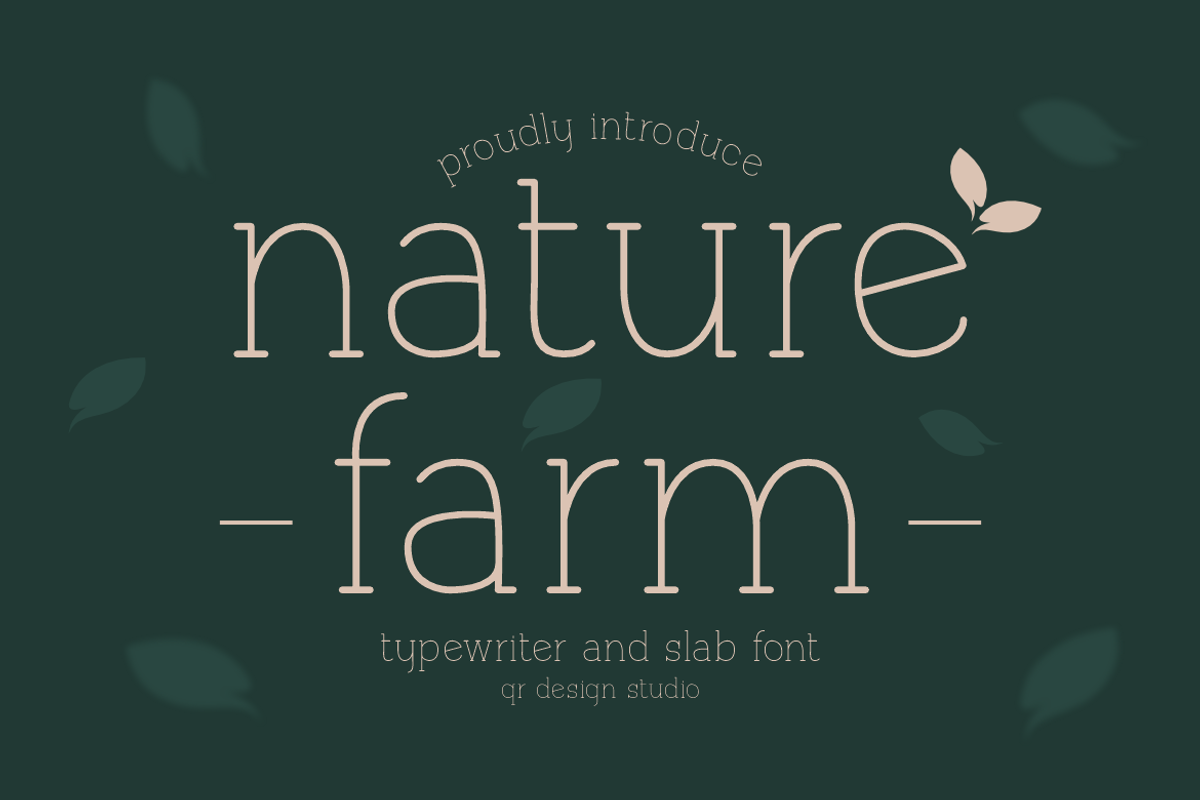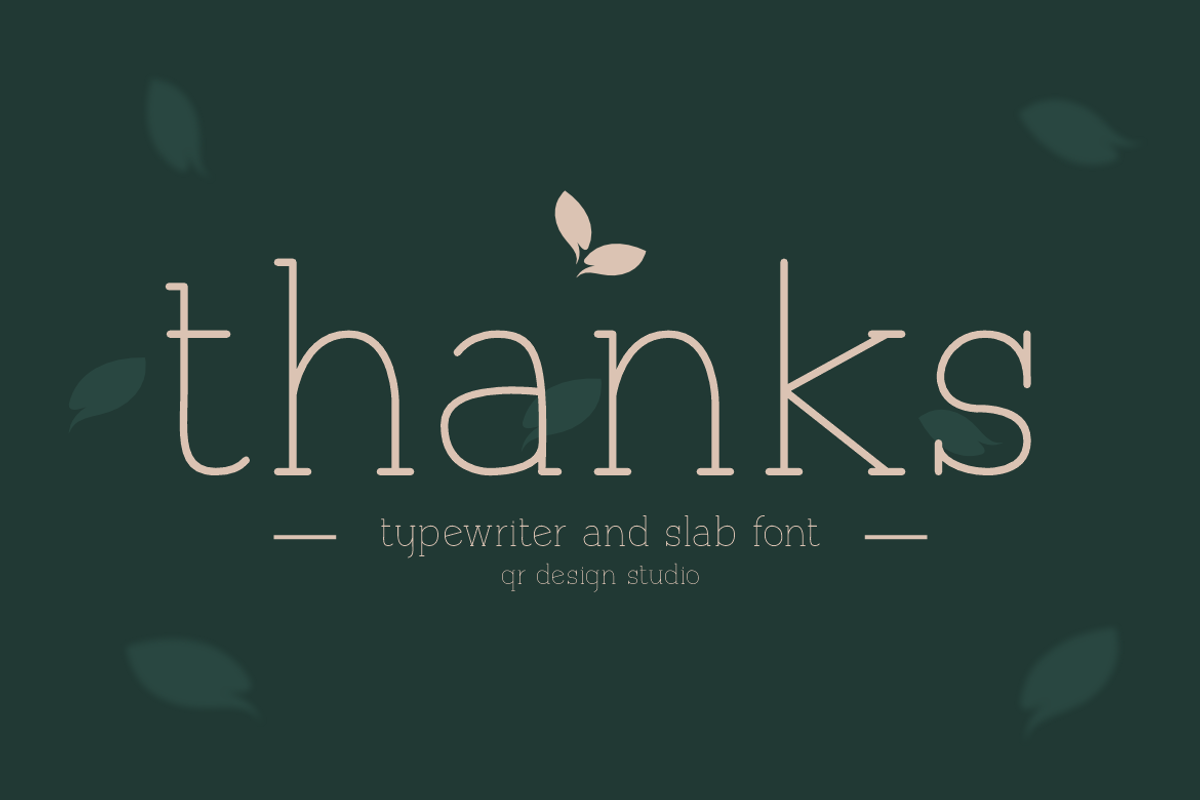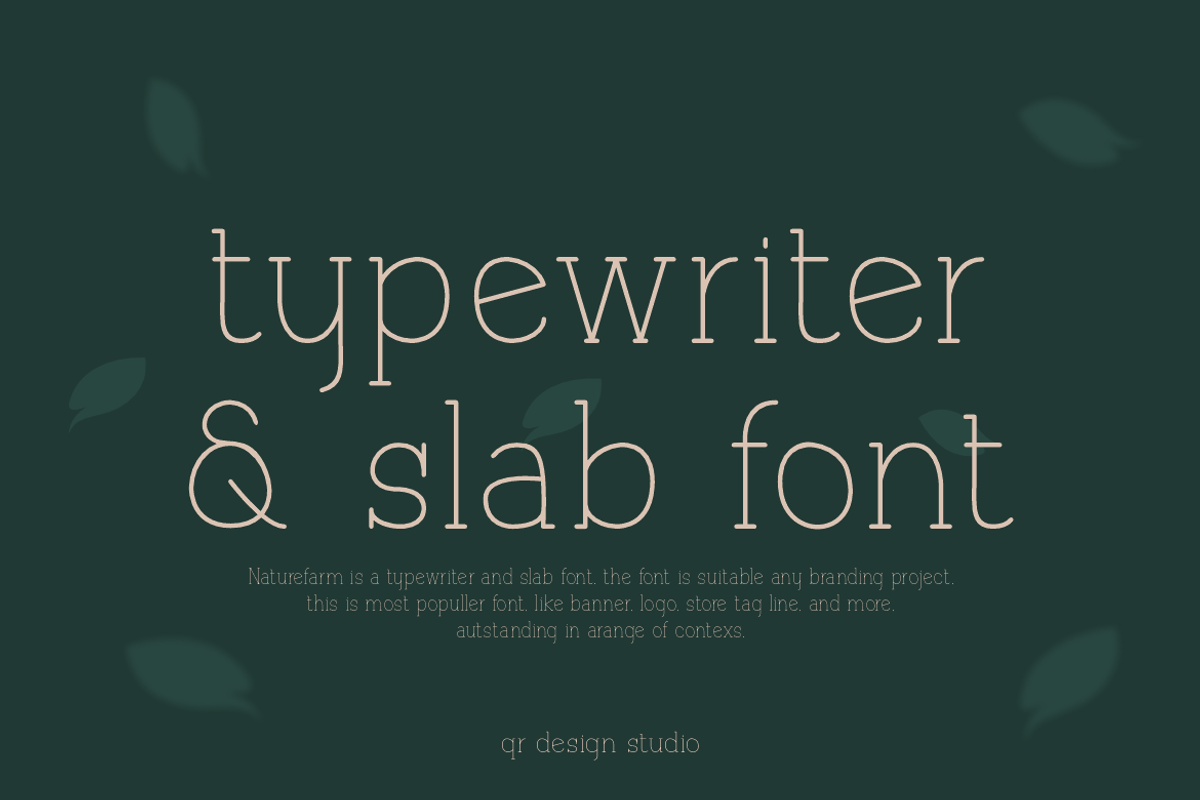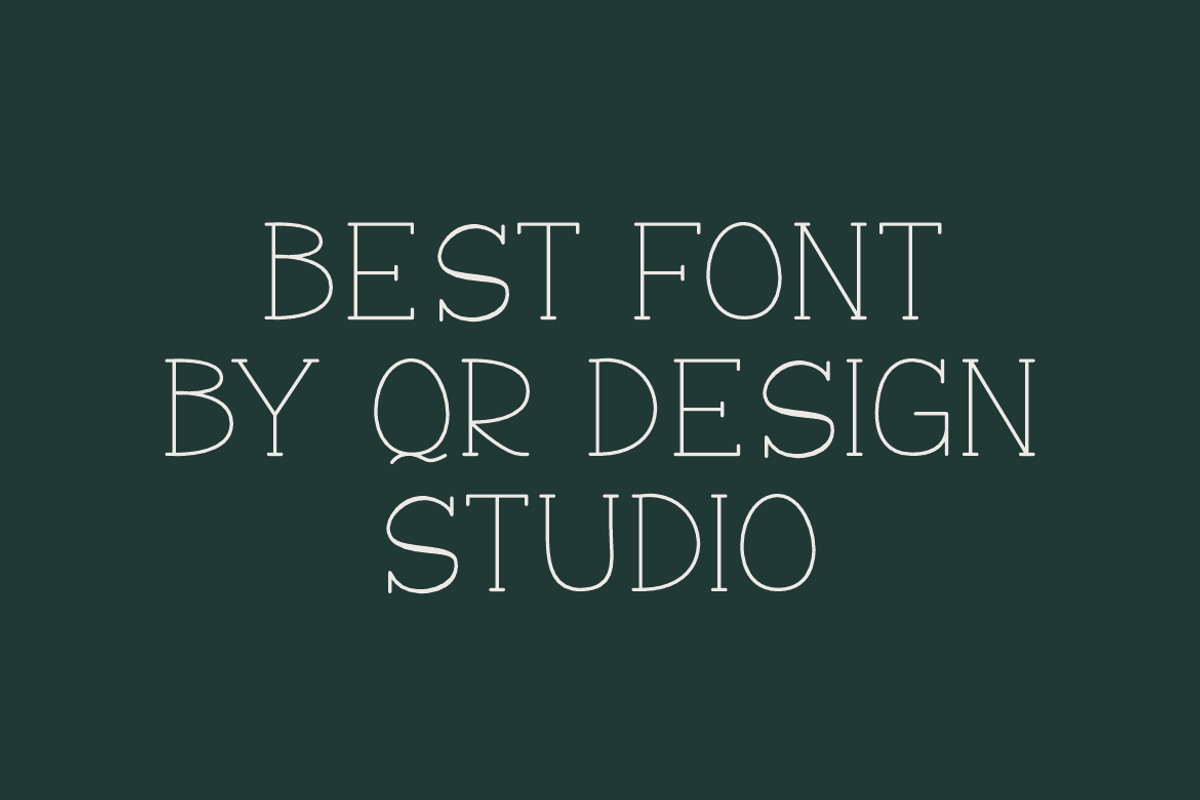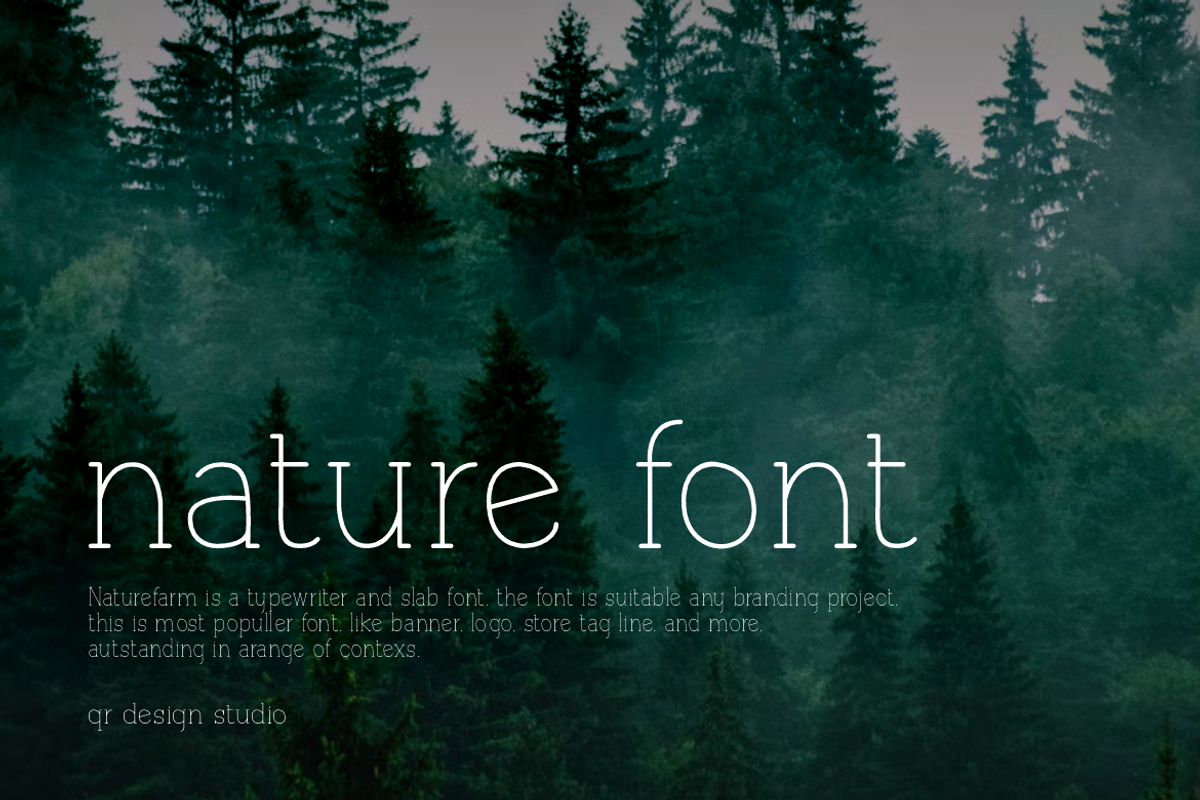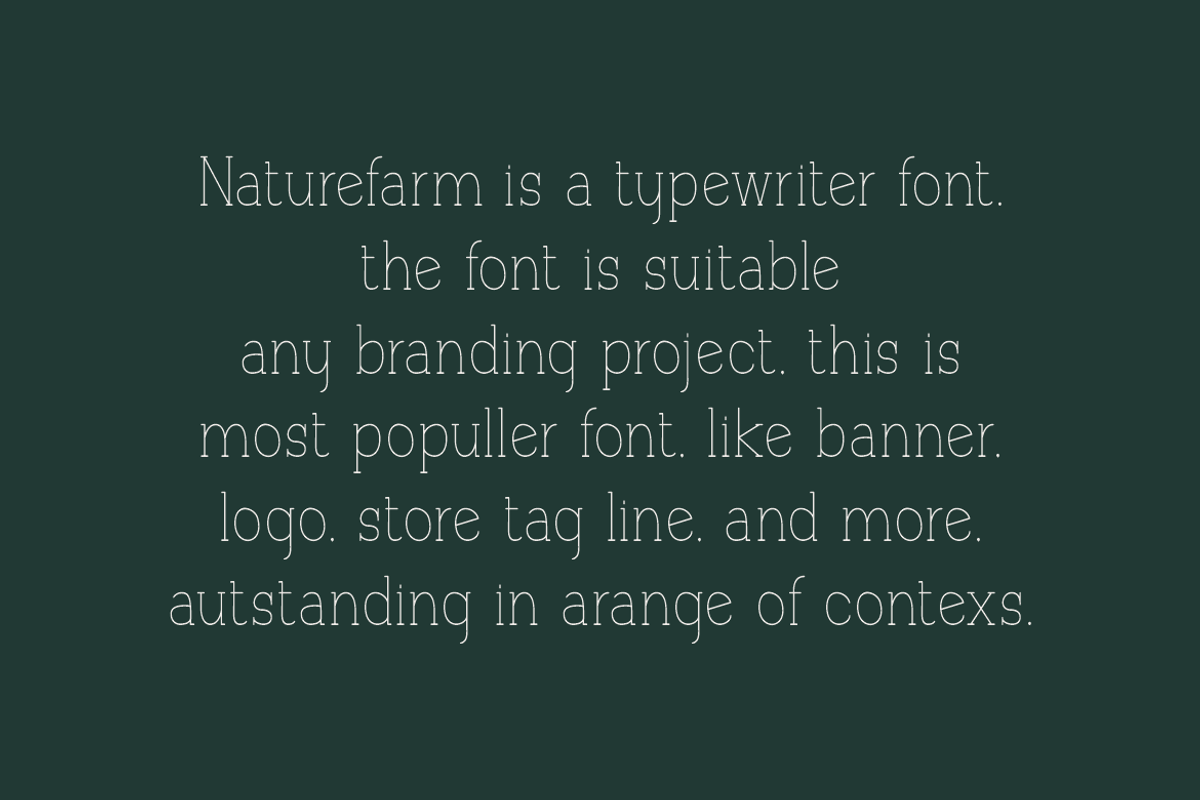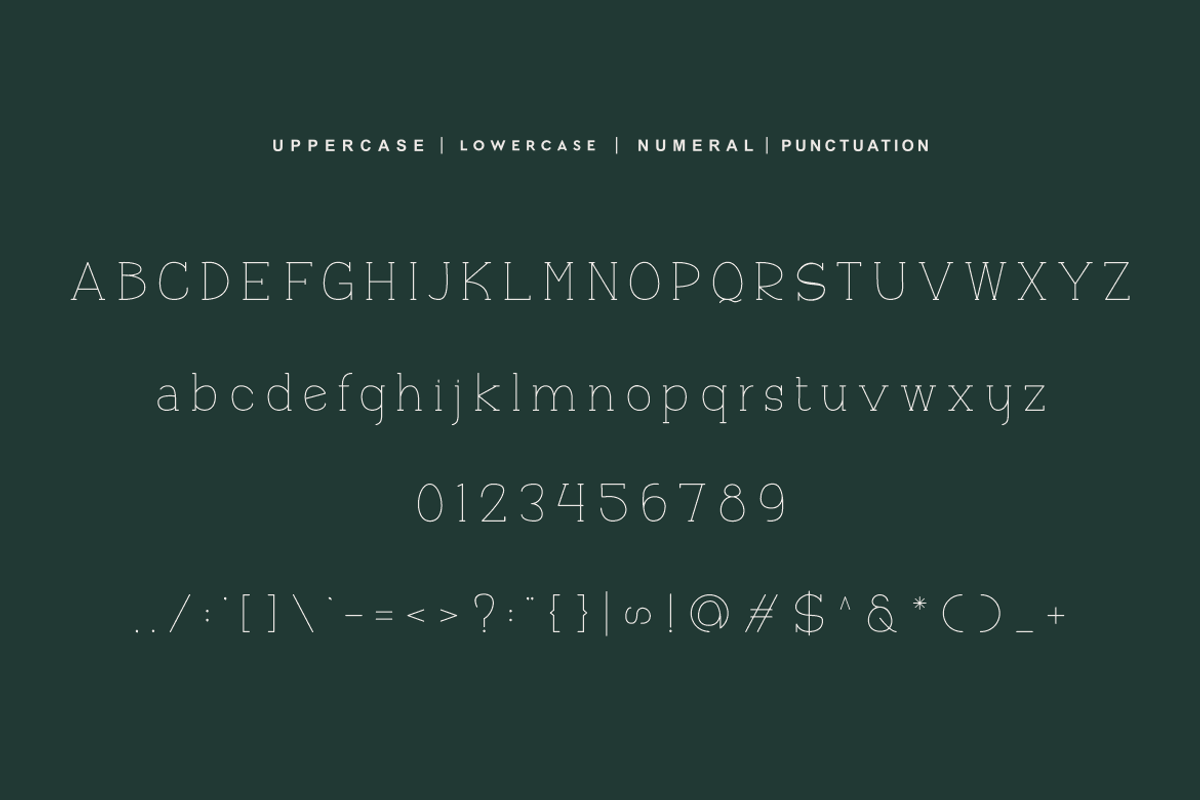
Naturefarm - Slab Serif Font
Naturefarm Font is a slab and authentic display font. The font is suitable for any branding project like poster, logo, sport, and many more. Outstanding in a wide range of contexts.